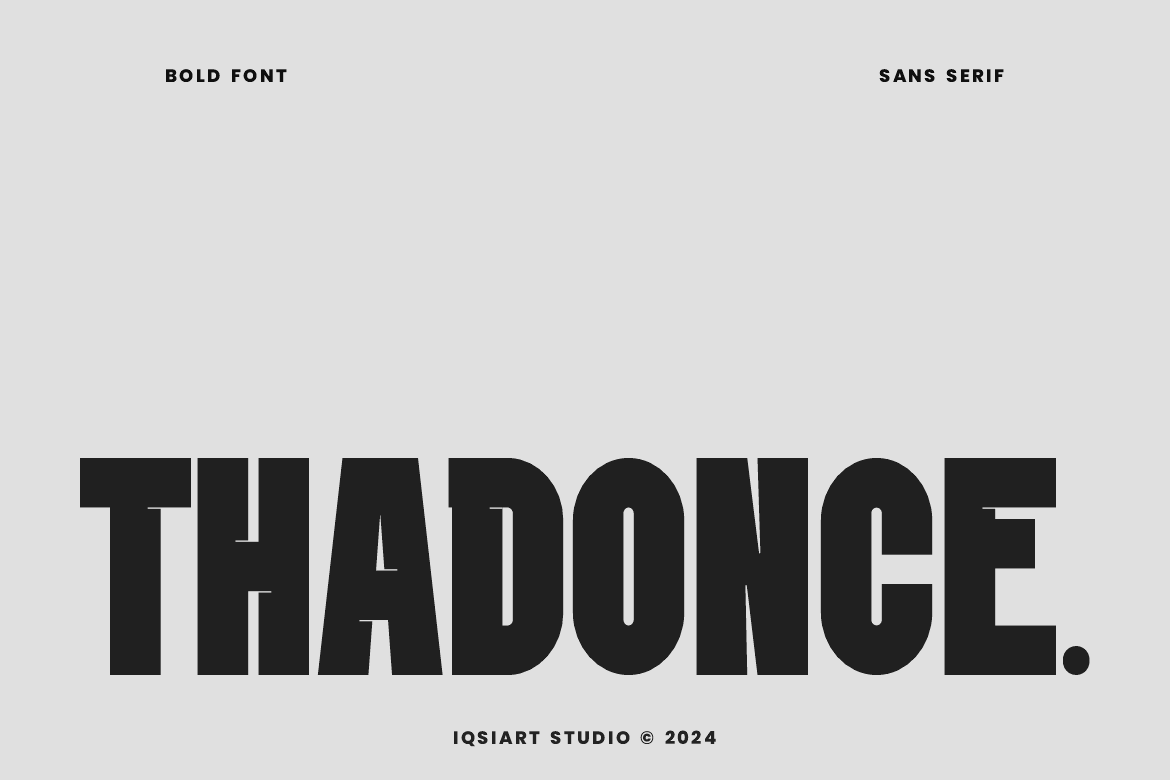
Thadonce - Racing Font
Thadonce Font is a best and authentic display font. This font can be used for your various needs. We provide various themes and font styles. visit our profile to get a wide variety of themes and different font styles you need.